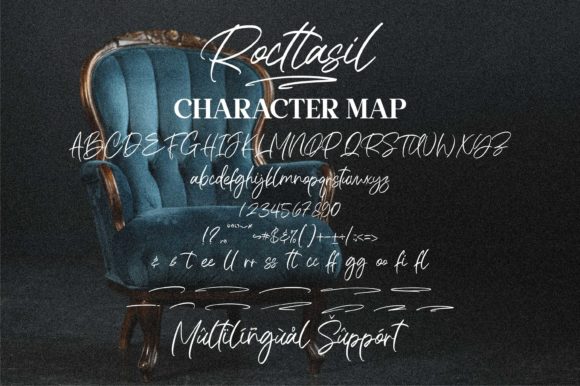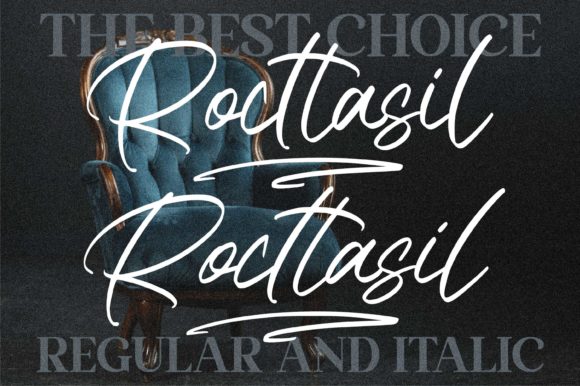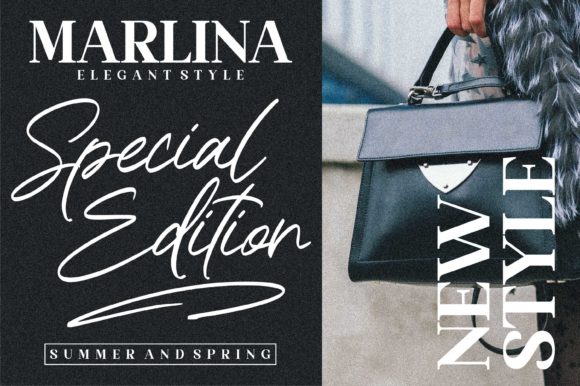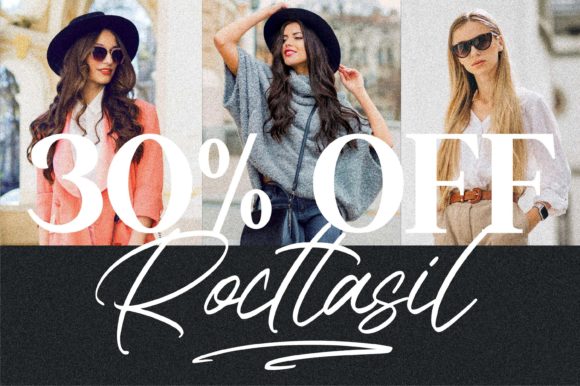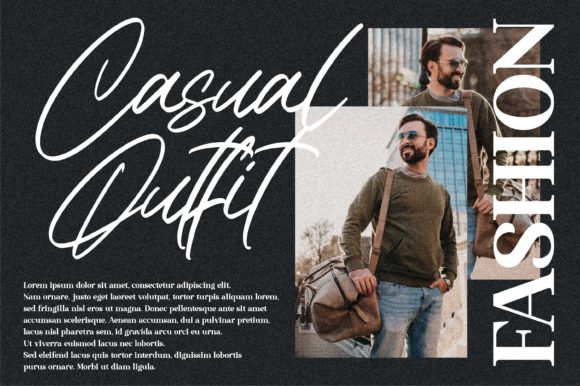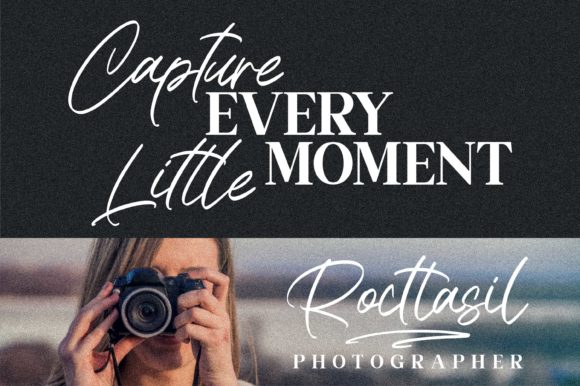
Introduction to Rocttasil Font
Do you remember the moment when you stumbled upon the perfect font that elevated your creative project from good to great? For many designers, it’s a moment of pure joy and excitement. The right font can make all the difference in conveying the tone and essence of your design, and that’s exactly what the Rocttasil Font is all about.
This lovely and relaxed paint brushed script font is a game-changer for any design project. Its versatility makes it an incredibly valuable asset to your fonts’ library, and with its free download option, you can start using it right away. Whether you’re working on a project with a transparent background or need a high-quality font for a creative endeavor, Rocttasil Font has got you covered.
- Designed with a unique aesthetic, perfect for adding a creative touch to your work
Honest Review: Rocttasil Font
What works well: ✨ The Rocttasil Font has a modern and sleek design that can easily be used for a wide range of creative projects. It’s a free download, which is a huge plus for designers on a budget. The font also comes with a transparent background, making it super easy to use in any design software.
What’s not so great: ⚠️ While the Rocttasil Font is a high-quality design resource, it’s not as versatile as some other fonts on the market. The design is quite specific and might not be suitable for every type of project. Additionally, the font family is quite limited, which can be a drawback for designers who need to create complex designs.
Overall impression: The Rocttasil Font is a solid addition to any designer’s collection. While it has its limitations, it’s a great option for designers who need a modern and sleek font for a specific type of project. Just be aware of its limitations and use it accordingly.
- Modern and sleek design
Tips for Getting the Most Out of Rocttasil Font
To get the most out of Rocttasil Font, use it in conjunction with a transparent background to create a high-quality design resource. You can also experiment with different font sizes, colors, and styles to create a unique look.
Common Use Cases for Rocttasil Font
The Rocttasil Font is ideal for creative projects, such as logos, brochures, and business cards. It’s also suitable for free download and use in various design software, including Canva, Adobe Photoshop, Adobe Illustrator, PowerPoint, and Word.